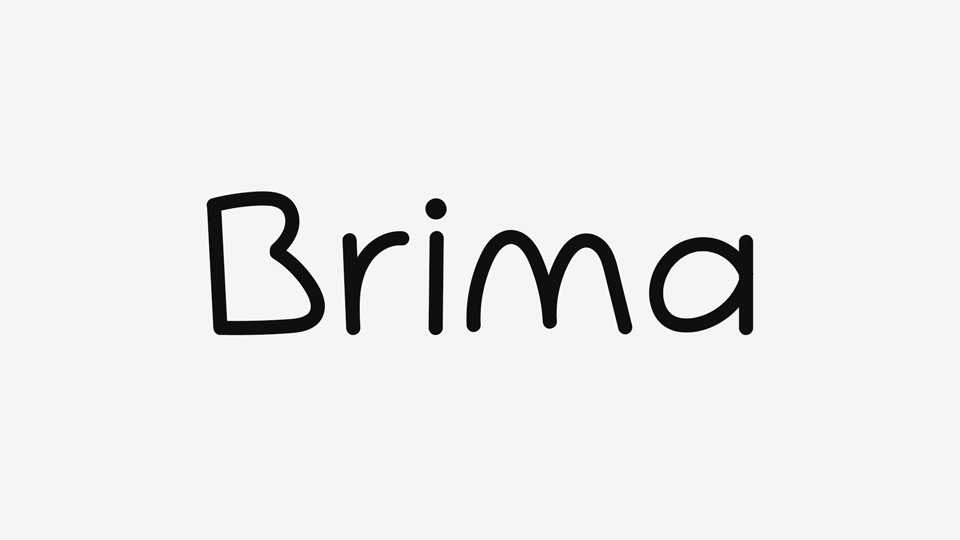
Download Brima font, a simple and natural hand drawn typeface that brings an effortless touch of personal warmth and approachable style to your designs. Brima font features an unpretentious and laid-back design, with each letter exuding a sense of organic flow.